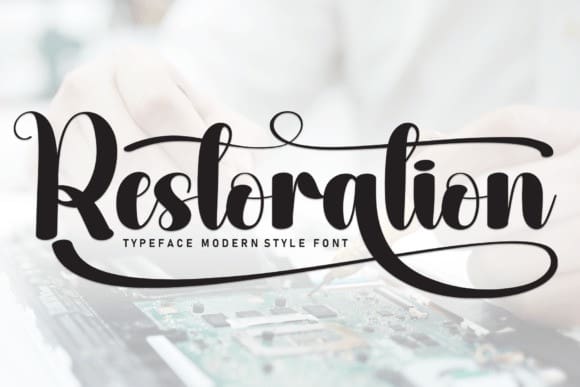
Restoration Script Font
Restoration Script Font is a sweet and friendly handwritten display font. Cute and fun, this font is ideal for writing wedding invitations, cards, or any other design that might need a fun touch!